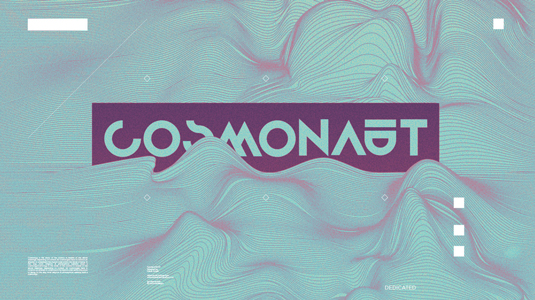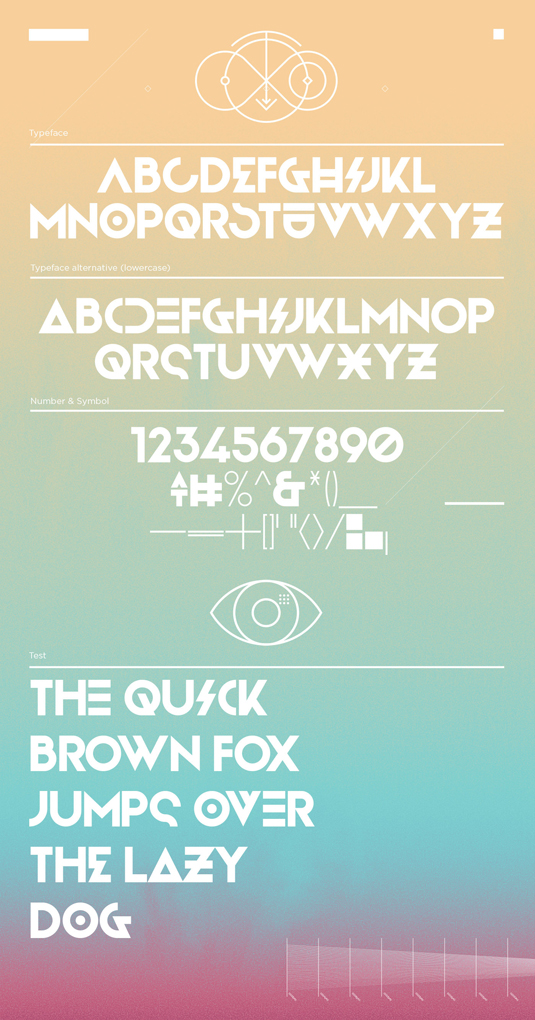
Font of the day: Cosmonaut
Each day of the week we showcase one of our favourite fonts – today it's Cosmonaut by Cahya Sofyan, which is totally free to download.
Cosmonaut by Cahya Sofyan
Today's typeface of choice is Cosmonaut, by design student Cahya Sofyan. Inspired by cosmology and geometric shapes, Cosmonaut is great for creating eye-catching headlines and posters.